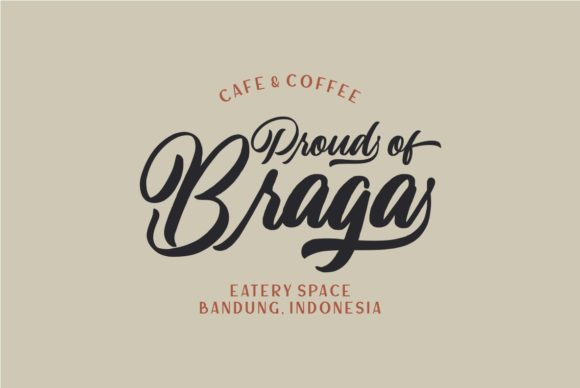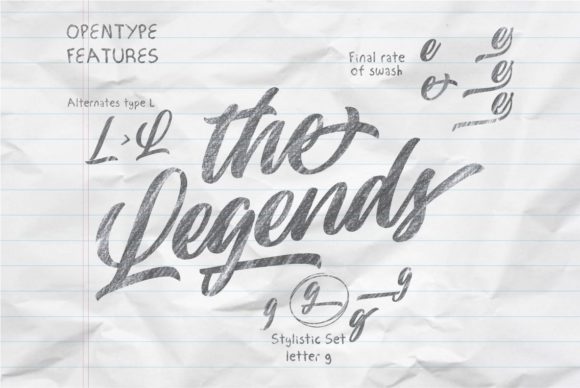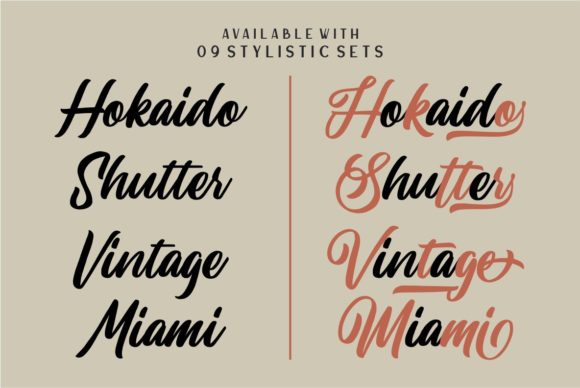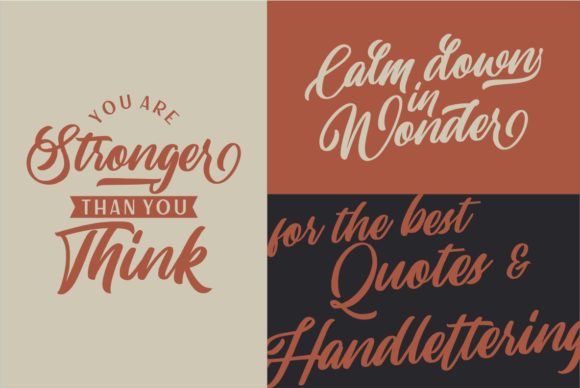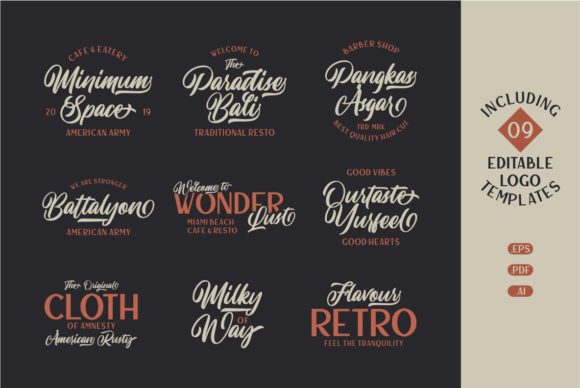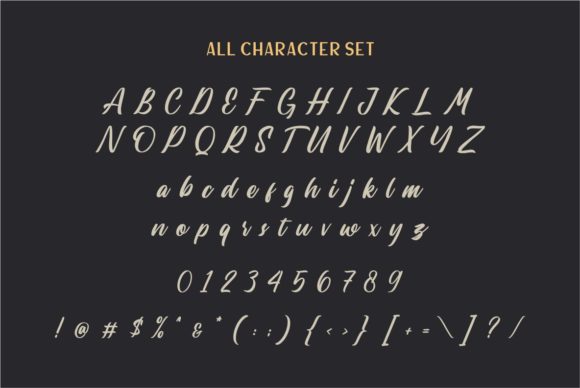
Introduction to Lastwinter Font
As a designer, you’ve probably had that moment when you’re staring at a blank page, trying to come up with the perfect design for your next creative project. The blank page stares back at you, taunting you with its emptiness. But then, you stumble upon the perfect font – the one that brings your design to life and makes it truly stand out.
That’s exactly what happens when you discover the Lastwinter Font – a stunning handwritten font with a vintage feel that’s sure to elevate any design idea. With its free download and transparent background, this high-quality font is a game-changer for designers looking for a design resource that’s both unique and versatile.
Key Features of Lastwinter Font
- Unique and elegant design style, ideal for creative projects and design resources.
- High-quality font with transparent background, allowing for seamless integration with various design elements.
- Perfect for use in digital design, including web design, graphic design, and print design, due to its versatility and high quality.
- Lastwinter Font is a unique and creative design resource, ideal for those looking to add a touch of elegance and sophistication to their projects.
- With its transparent background and high-quality design, Lastwinter Font is an excellent choice for designers looking for a reliable and effective design resource.
Honest Review: Lastwinter Font
I recently came across the Lastwinter Font, and I’m excited to share my thoughts on this design resource. As a designer, I’m always on the lookout for high-quality fonts that can elevate my creative projects.
The Lastwinter Font is a beautiful, elegant script font that’s perfect for wedding invitations, quotes, and other romantic designs. The font features a transparent background, which makes it easy to use on various backgrounds and images.
Here are some things that work well about the Lastwinter Font:
- ✨ Beautiful, elegant script design
- ✨ High-quality, smooth lines and curves
- ✨ Transparent background for easy use
- ⚠️ Limited font styles and weights available
- ⚠️ May not be suitable for bold or sans-serif designs
Overall, I’m impressed with the Lastwinter Font. It’s a great addition to any designer’s toolkit, and I’m sure it will be a hit for creative projects that require a touch of elegance and romance.
Lastwinter Font
Lastwinter Font is a versatile design resource ideal for creative projects. This free download offers a high-quality, elegant font perfect for various applications.
Common Use Cases for Lastwinter Font
Lastwinter Font is ideal for wedding invitations, corporate branding, and creative projects requiring a touch of elegance. Its transparent background makes it perfect for overlays and design elements.